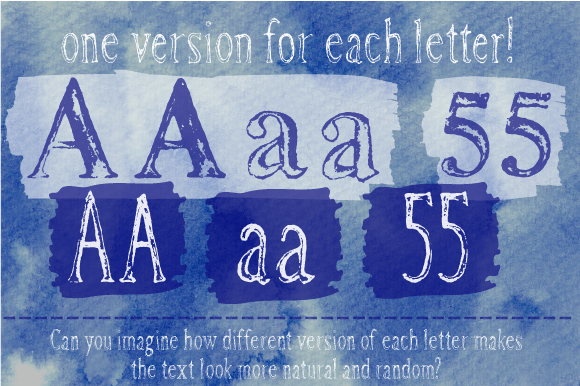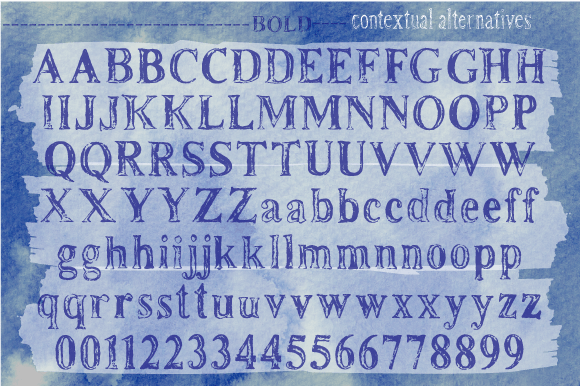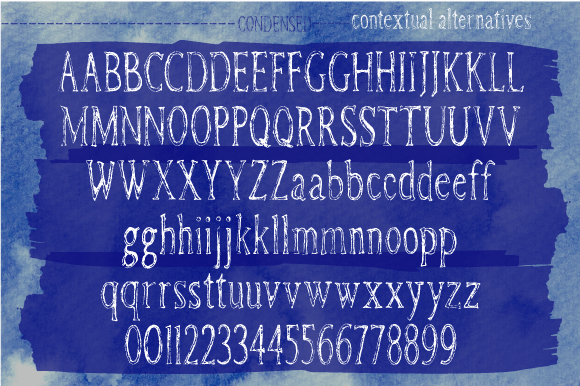
Rusty Fever is a Slab Serif font that evokes the suggestive atmosphere of the depth of oceans and the water erosion aspect.
The corroded and rusted effect confer to this font an oxidized appeal, emphasizing its own irregular shape.
Rusty Fever Font